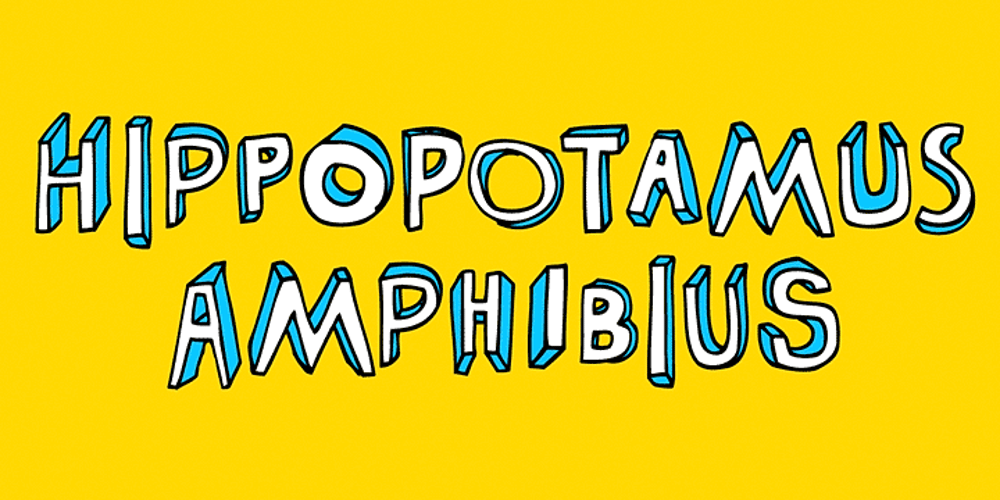
Bubol Font Family was designed by Aleksandra and Daniel Mizielińscy and published by Hipopotam Studio. Bubol contains 4 styles and family package options. Typeface designed for award winning website www.bubole.pl. To be able to change fills and stroke color separately we created 3 fonts. Each glyph has an alternative version so it can give a more handmade impression.